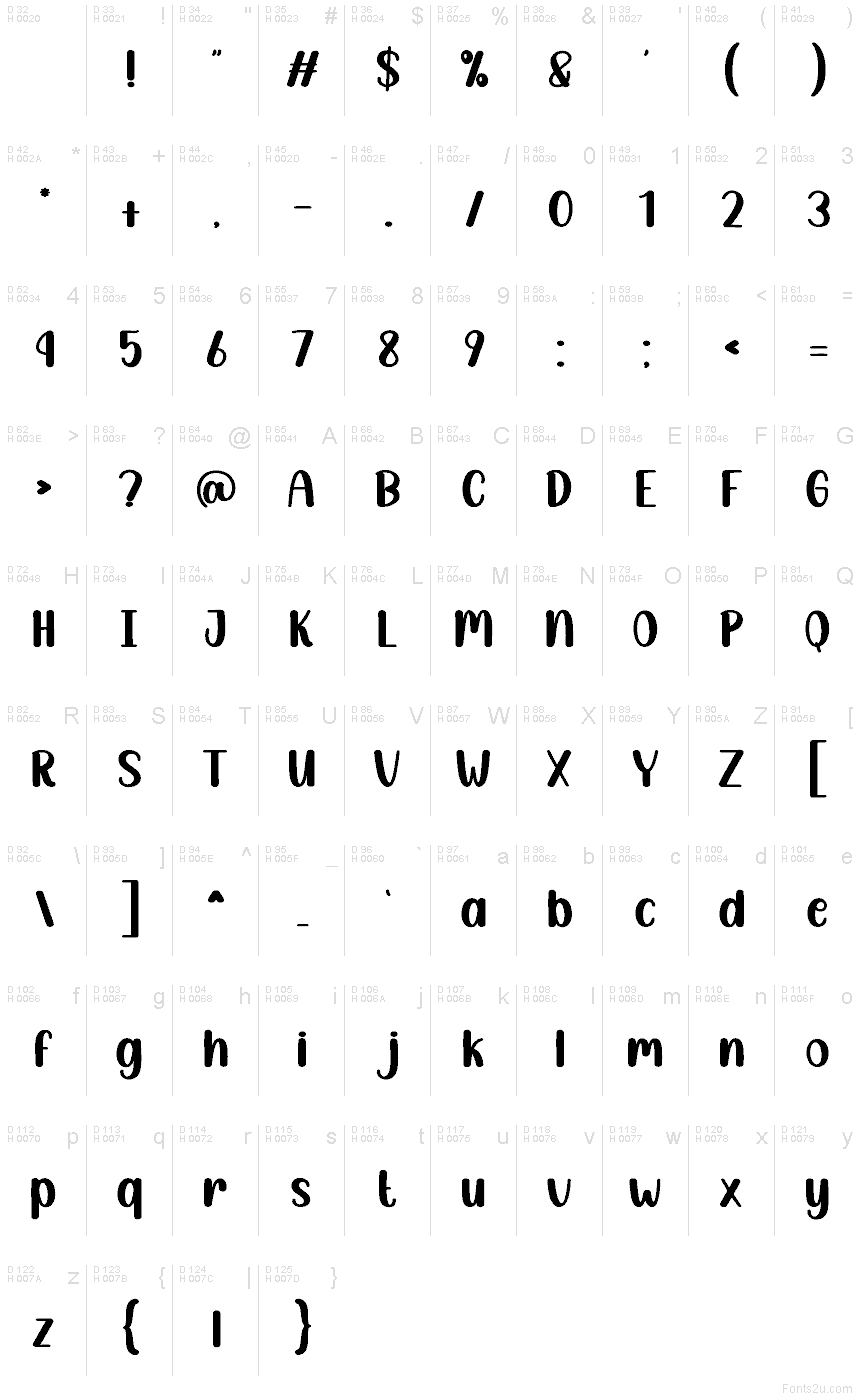
Happy Night
Happy Night font by Scratchones is a free brush script font. Rounded strokes swell like wet ink, then taper into smooth, glossy terminals, giving headlines a friendly bounce without turning messy. The rhythm stays tight and readable, with a generous x-height that keeps words feeling cuddly and close—great when you want warmth to come through at a glance.
Using Happy Night, cheerful projects shine: birthday invitations, kids’ book covers, bakery packaging, craft stickers, party signage, Etsy shop banners, and bubbly social posts. This free font loves big sizes, where the soft curves and even texture can breathe. Pair it with a clean geometric sans for body copy, and let the brushy title do the smiling.